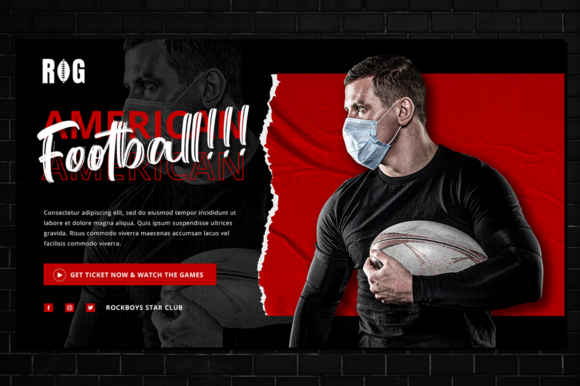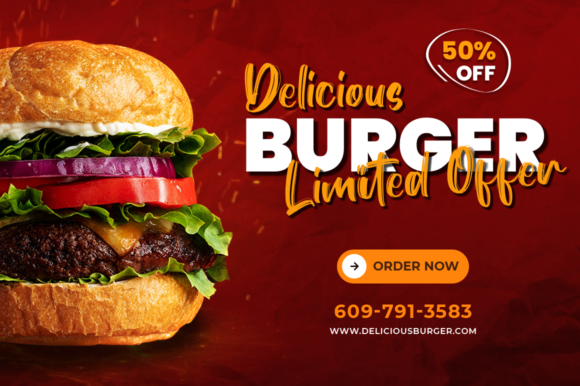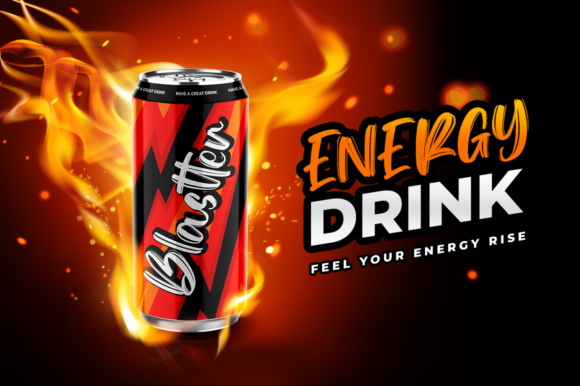
Introduction to Shutdown Brush Font
One such font that has been making waves in the design community is the Shutdown Brush Font. This elegant script font is a masterpiece, carefully crafted to add a touch of sophistication to any design. Whether you’re working on a high-quality project or simply need a free download to spice up your Instagram posts, Shutdown Brush Font is sure to impress.
With its unique blend of style and functionality, Shutdown Brush Font is an essential tool for any designer looking to elevate their creative work. And the best part? It’s available for free download, making it accessible to designers of all levels.
Key Features of Shutdown Brush Font
- High-quality design resource ideal for creative projects, with a unique, brush-style aesthetic.
- Designed to be highly versatile, making it suitable for a variety of creative projects, from digital art to print materials.
Honest Review: Shutdown Brush Font
I recently had the chance to work with Shutdown Brush Font, and I’m excited to share my honest thoughts with you. This font is a great addition to any design resource, offering a high-quality look that’s perfect for creative projects.
- ✨ One of the standout features of Shutdown Brush Font is its unique, hand-drawn style. It’s perfect for adding a touch of personality to your designs.
- ✨ The font is also incredibly versatile, with a range of weights and styles to choose from. This makes it easy to use in a variety of creative contexts.
- ⚠️ One potential issue is that the font doesn’t include a transparent background option, which can make it difficult to use in certain design situations.
- ⚠️ Additionally, the font’s hand-drawn style can sometimes feel a bit inconsistent, which may be a concern for designers who value precision.
Overall, I’m impressed with Shutdown Brush Font. While it may not be perfect, it’s a valuable addition to any design resource, and its unique style is sure to add a touch of creativity to your projects.
Shutdown Brush Font is ideal for creative projects requiring a unique, high-quality font. Common use cases include digital art, graphic design, and web design. The font’s versatility and transparent background make it a valuable addition to any design resource.